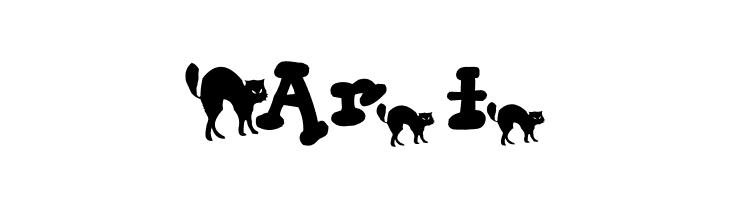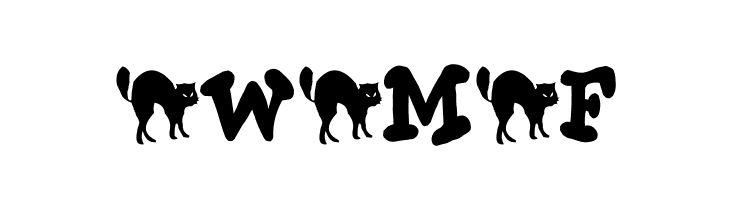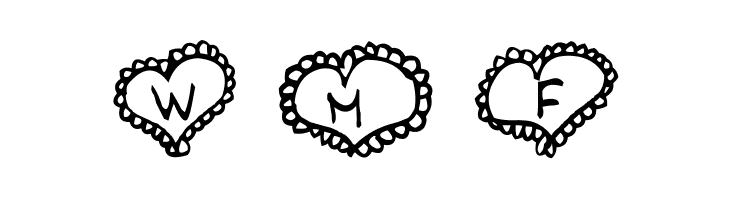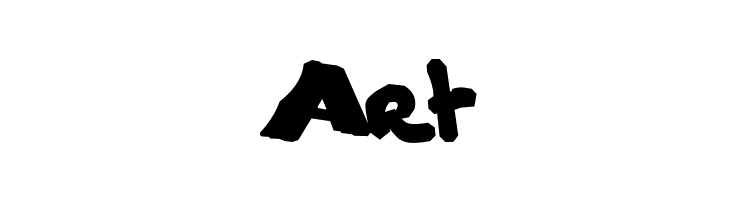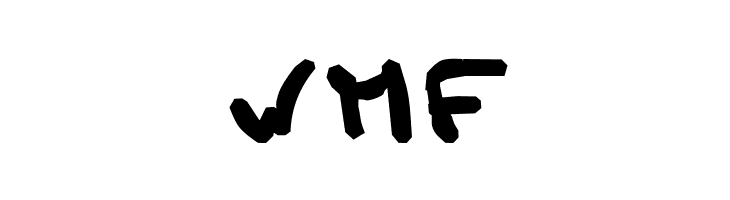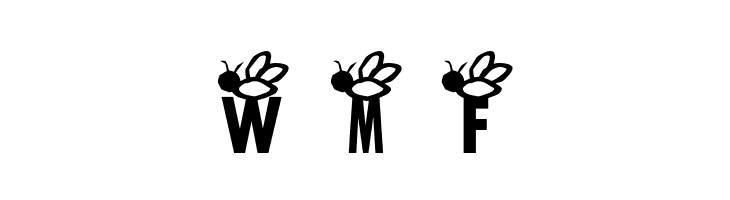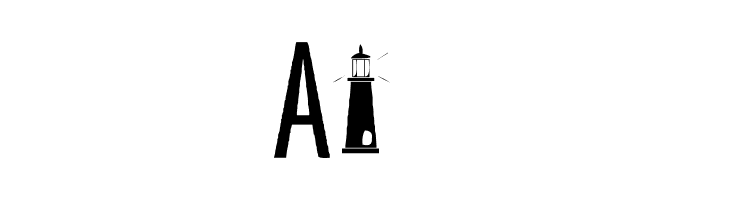
A whimsical font with black cat silhouettes integrated into each character.
A decorative font with characters inside lace-bordered hearts, offering a playful and romantic style.
A dingbat font with classic toy illustrations.
A bold, hand-drawn font with an expressive and dynamic style.
A playful, monster-themed decorative font with bold, quirky characters.
A playful, hand-drawn design featuring cute bunny illustrations.
A bold, hand-painted style font with expressive, uneven strokes.
A bold, whimsical font with bee illustrations atop each character.
A decorative font with a lighthouse motif integrated into each letter, ideal for nautical themes.
A playful, chalkboard-style font with bold, hand-drawn letters in tilted squares.